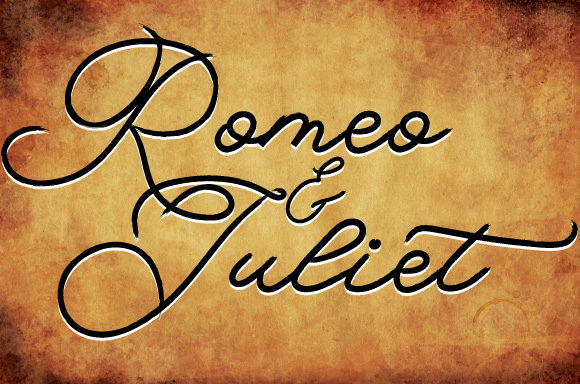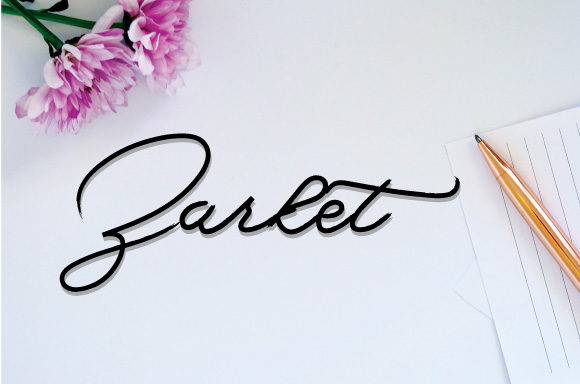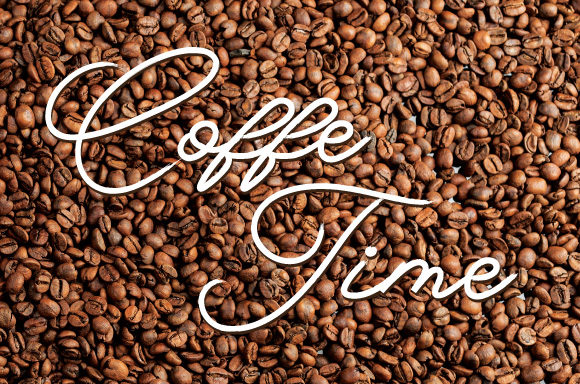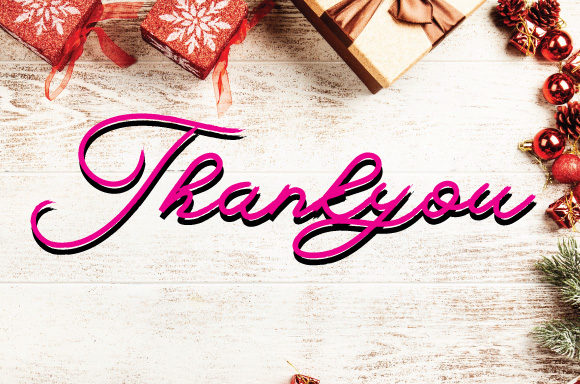
Romeo and Juliet Font
About Romeo and Juliet Font
Romeo and Juliet is a dazzling script font that exudes charm and relaxation in its lovely style. With its versatile and enchanting design, this font becomes an invaluable asset to your fonts’ library, as it has the potential to elevate any creation to new heights.
The relaxed and lovely script style of Romeo and Juliet brings a sense of allure and beauty to your creations. Each letter carries the artistic and captivating touch of script handwriting, making your work stand out with a touch of elegance and authenticity.
With Romeo and Juliet as part of your font collection, you have the freedom to explore various design ideas. No matter the topic or project, this font adapts effortlessly to bring a sense of versatility and charm to your work.
Embrace the dazzling charm of Romeo and Juliet and witness how it transforms your designs into captivating works of art. Its potential to elevate any creation adds a touch of authenticity, making your creations truly special and filled with a sense of timeless allure and beauty.
Discover the joy of creating with Romeo and Juliet as your trusted companion. Let its script appearance be the key to unlocking your creativity and infusing your work with a sense of charm and relaxation.
Whether you’re designing for personal projects or professional endeavors, Romeo and Juliet is the font that adds that extra touch of flair and sophistication to your creations. Take advantage of its PUA encoding, which allows easy access to all the glyphs and swashes, and explore the vast possibilities it offers.
Let Romeo and Juliet be the font that sparks your inspiration and enhances your designs with its dazzling and lovely style. Experience the magic of Romeo and Juliet and witness how it elevates your creative projects, making them truly remarkable and filled with a sense of enchantment and allure reminiscent of the famous literary couple after which it is named.